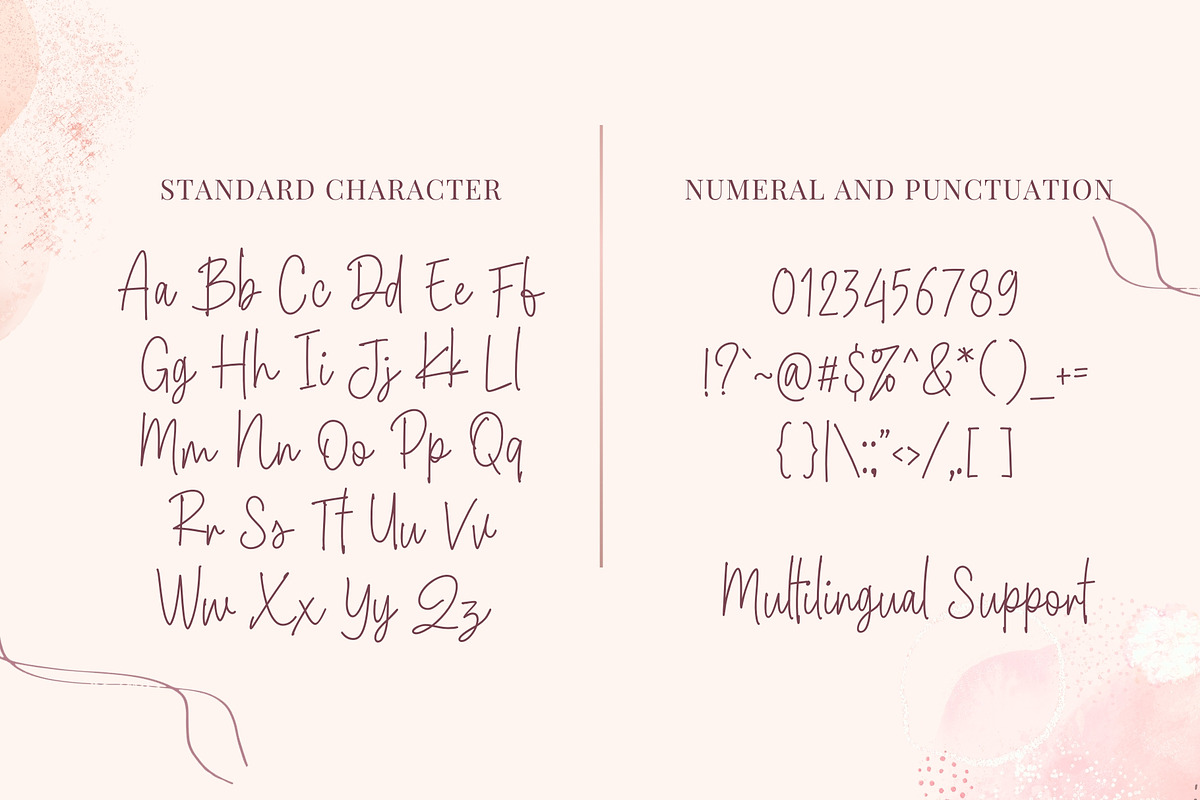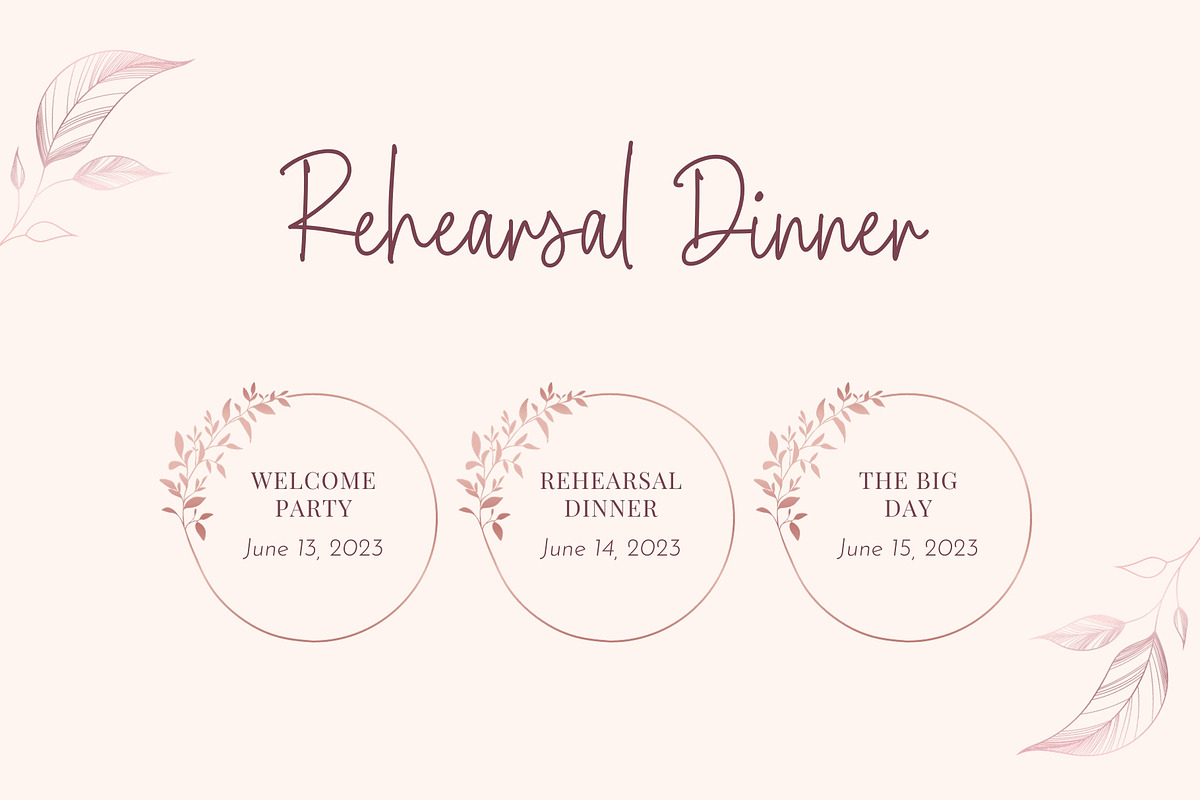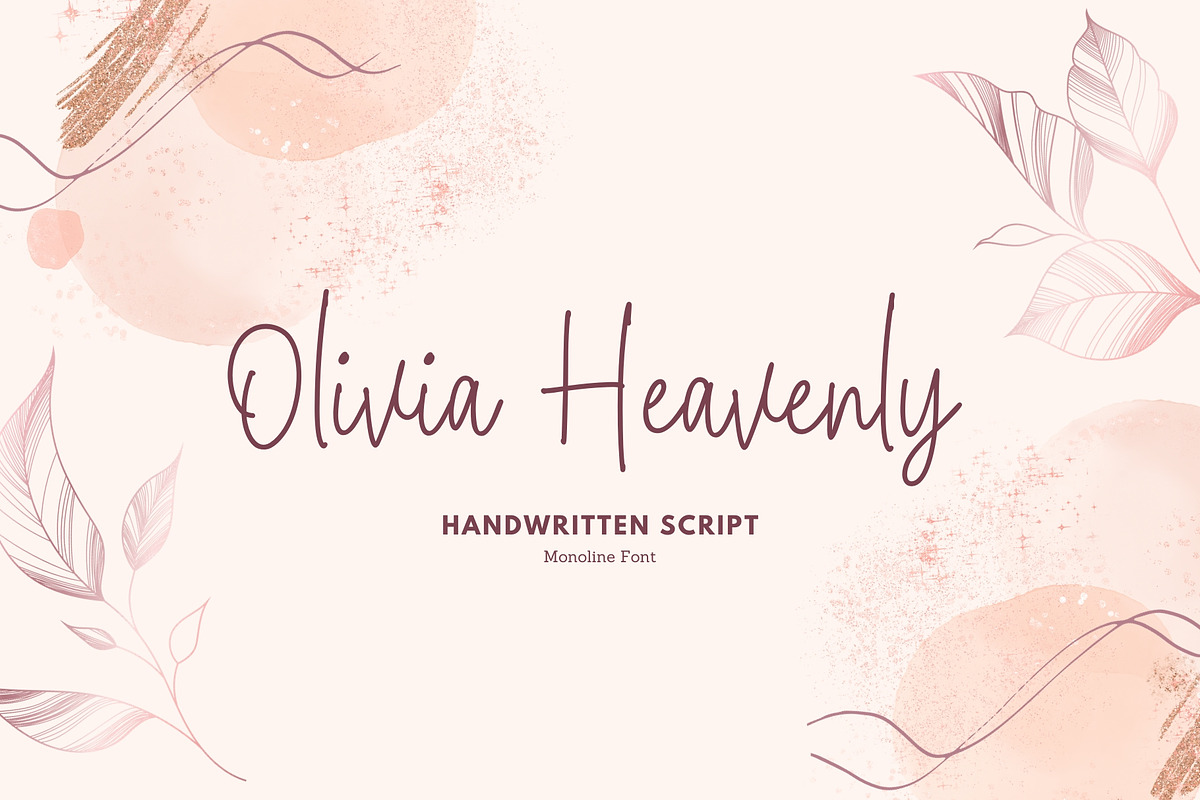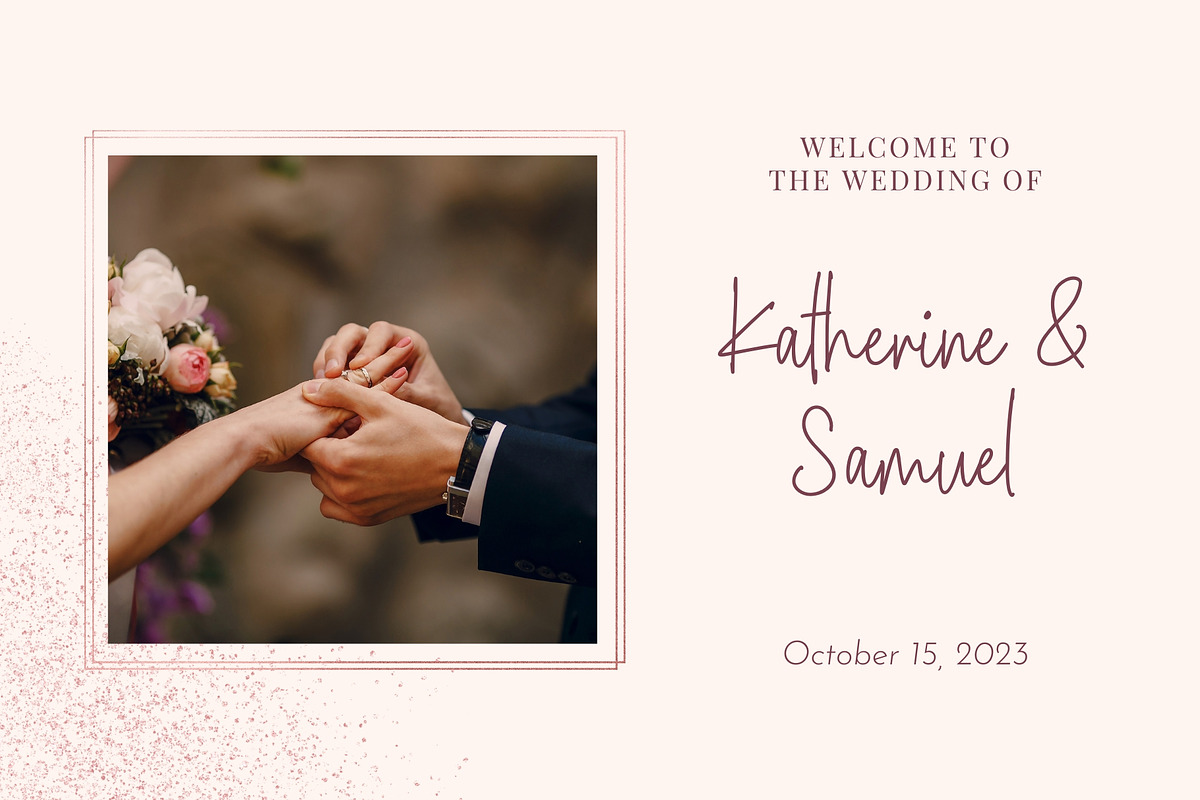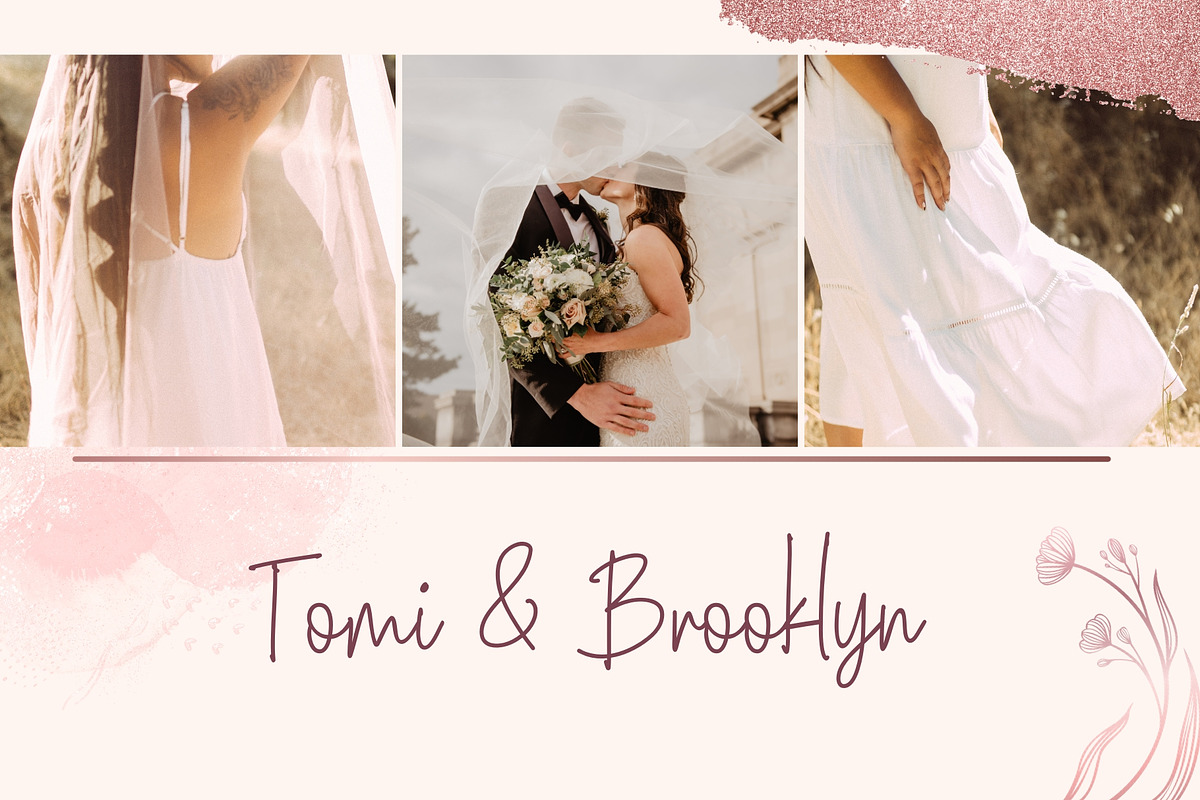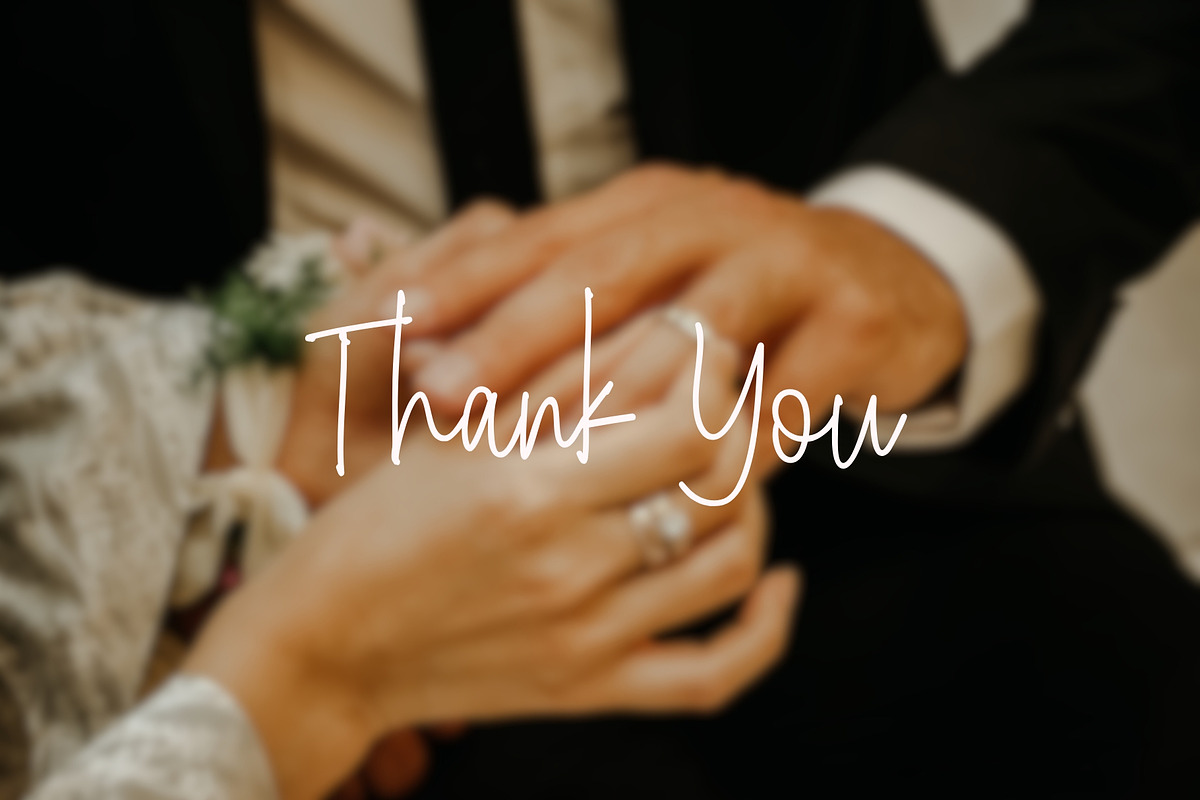
Olivia Heavenly
Olivia Heavenly This new script font embodies the essence of natural handwriting. Designed to convey elegance and organic handwriting, it effortlessly exudes a sense of graceful flow.
- Upper and Lowercase